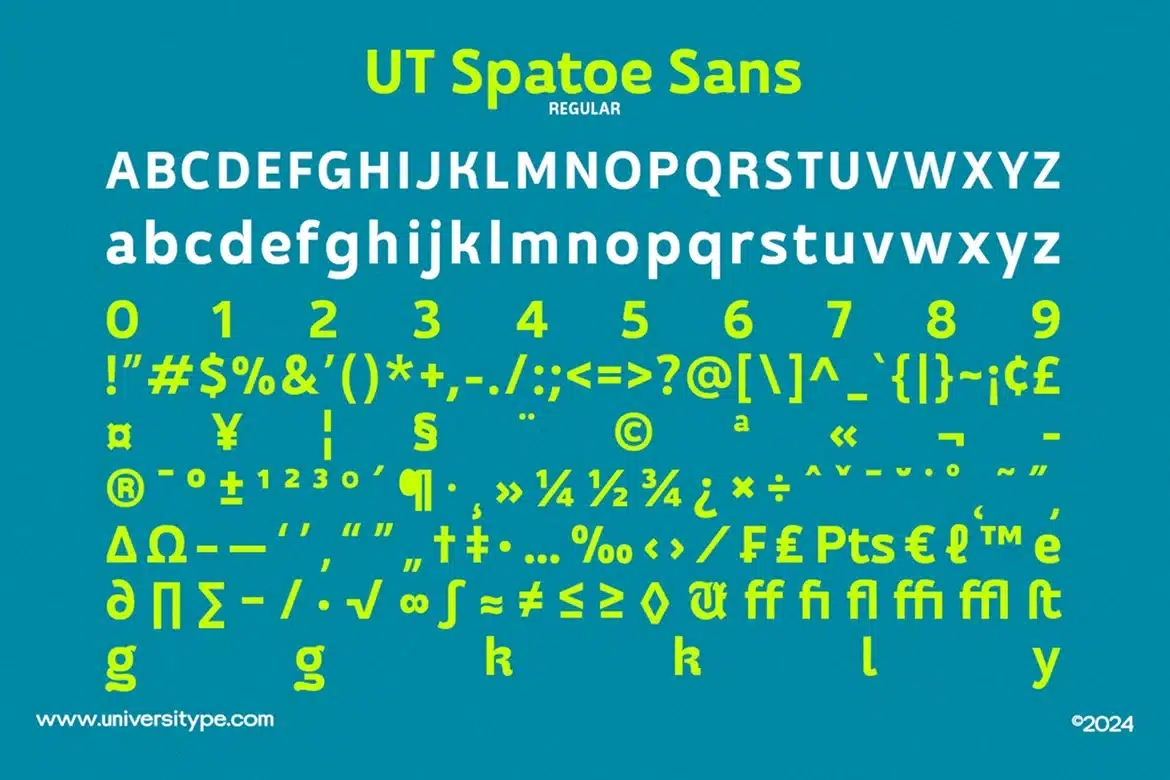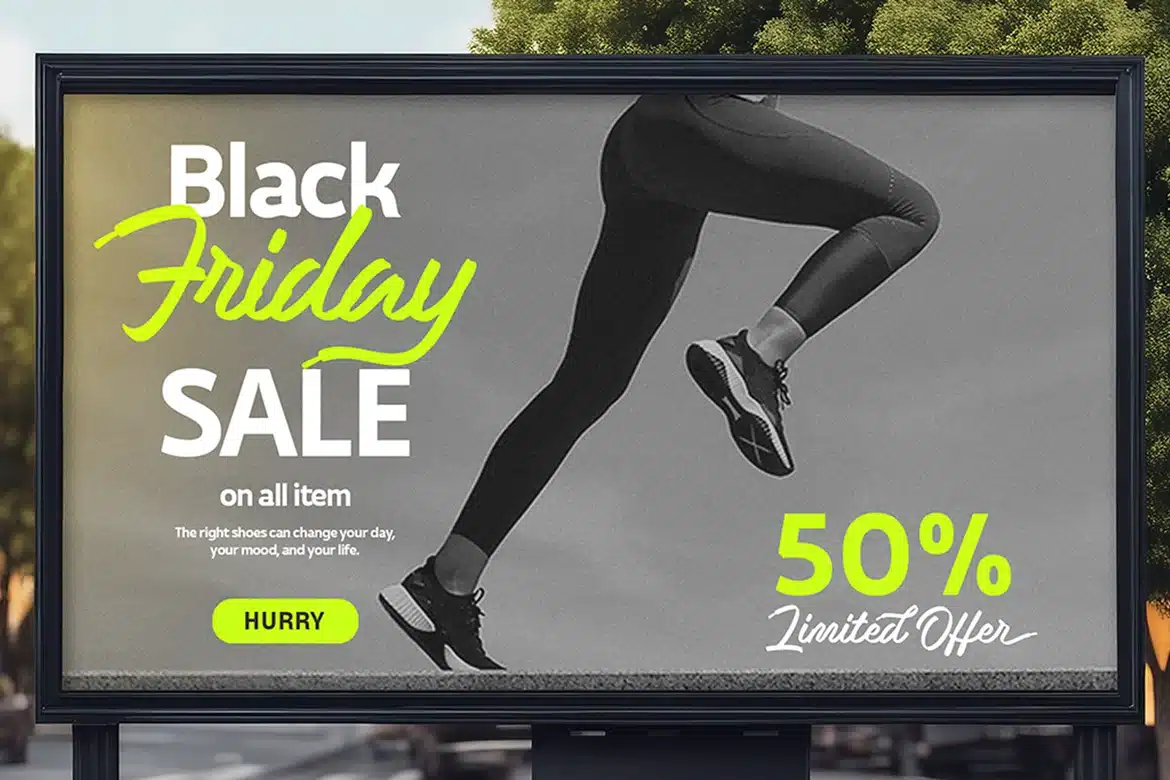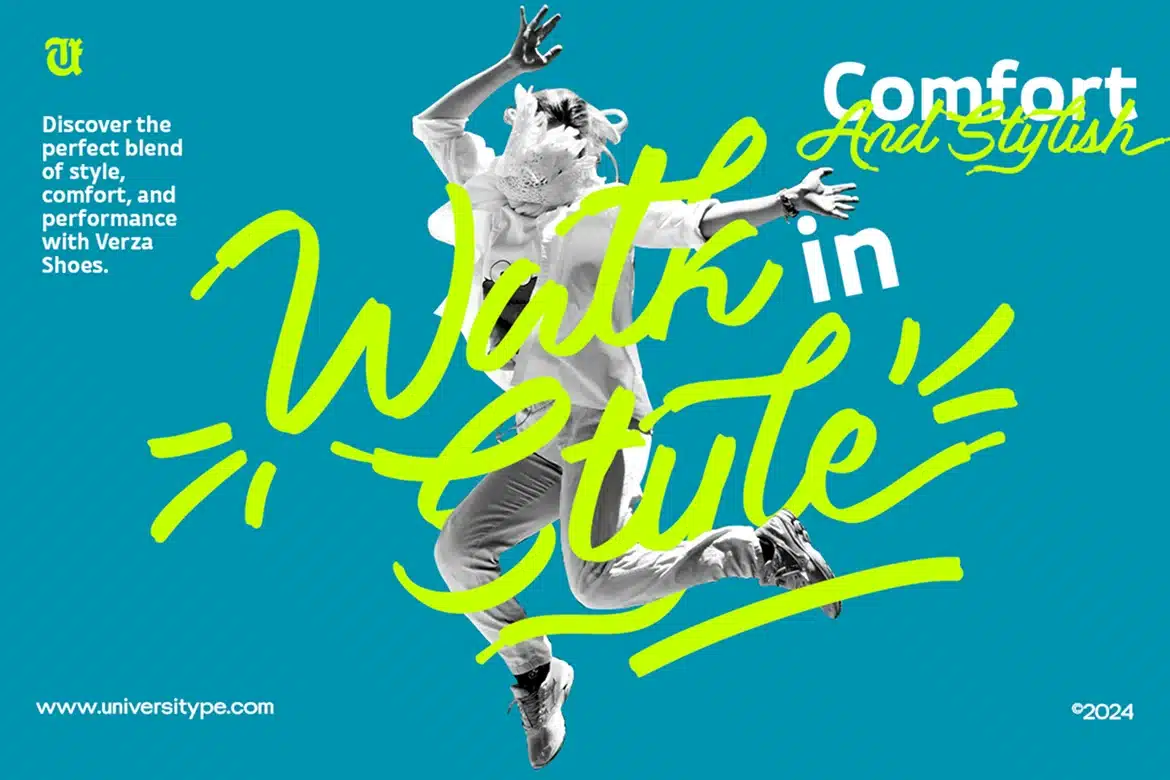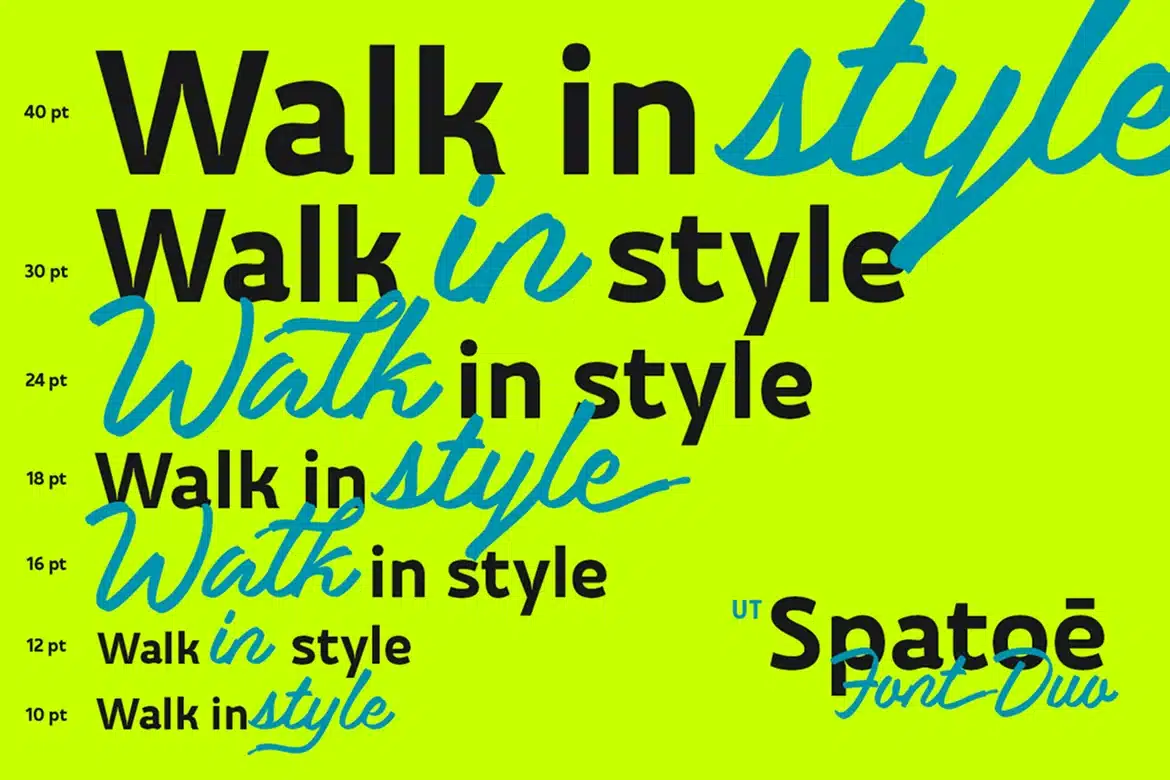
Spatoe – A Casual Font Duo
Meet Spatoe Font Duo, an exquisite font set that combines modern design with the art of storytelling.
Spatoe Sans is a font dominated by the streamlined and self-assured strokes of a shoe platform which leads to a clear-cut sans-serif that embodies a modern design.
In contrast, Spatoe Script has the flexibility of shoelaces, meaning it is handmade and expressive. On the one hand, it is a creative piece of art that is elegantly designed, on the other hand, it is a precise and technical font.
Designers, brand strategists, and creatives who want to inject sass and creativity into their work are hereby invited to this duo. If you are coming up with edgy branding or using a friendly voice when you design editorial, Spatoe is a good fit for you. Adding a human touch is important for editorial designs.
Key Features of Spatoe:
- Versatility: Becomes the perfect middle ground between the technical and the artistic.
- Legibility: The character shapes are conspicuously visible, thus readability is ensured even at larger sizes. You can now type headlines and texts.
- Unique Attributes: The sans-serif has a soft line which is related to the flexible curvature of a shoe sole while the script’s ligatures get the impression of flowing laces.
*– Stylistic Options: Designs can be customized using the available alternates, stylistic alternates, and ligatures for a personalized typography experience.
Inspiration Behind the Design:
The main concept for this shoe, which borrows its elements from a sneaker’s structure, portrays both the well-defined geometry of the sole and the organic, fluid design of the laces. The sole, whose solid and dependable form serves as a metaphor for strength and stability, is complemented by the laces, which are gently and swiftly moving and thus suggest adaptability and expression.
This thoughtful juxtaposition not only highlights the functionality and aesthetic balance of the design but also reflects the interconnectedness of movement, creativity, and practicality. It’s a cohesive representation of how structure and flexibility can coexist harmoniously, embodying the spirit of innovation and everyday versatility.
- Features: Alternates, stylistic alternates, ligatures, Swashes